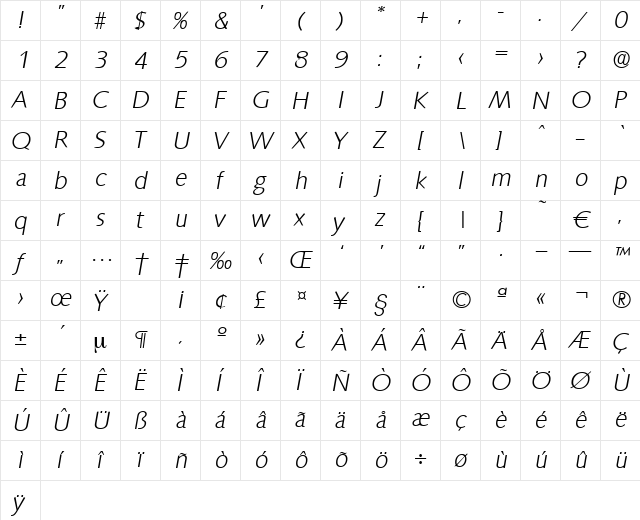
Saxony-LightIta Regular
Design Context for Saxony-LightIta Typeface
Saxony-LightIta is a composed and adaptable typeface that performs quietly and consistently across a wide range of design contexts. The delicate stroke weight brings airiness and refinement to layouts.